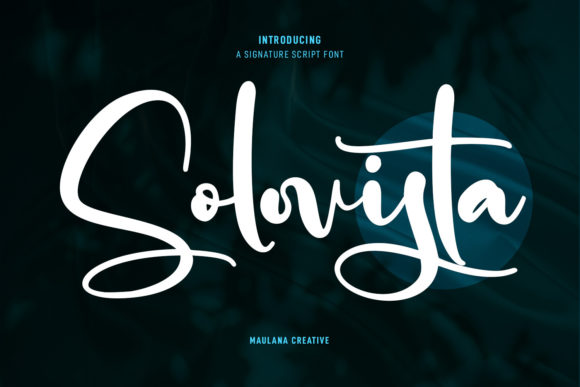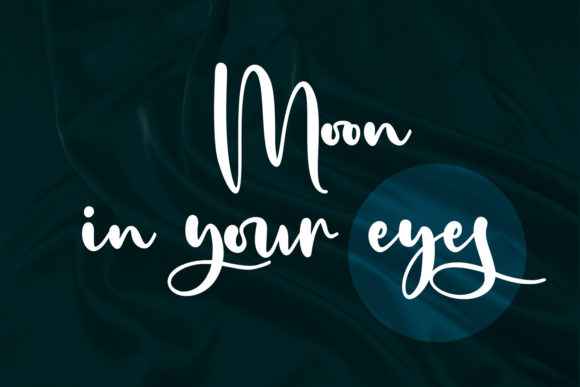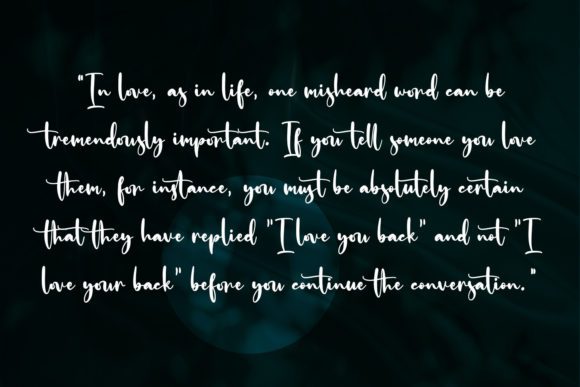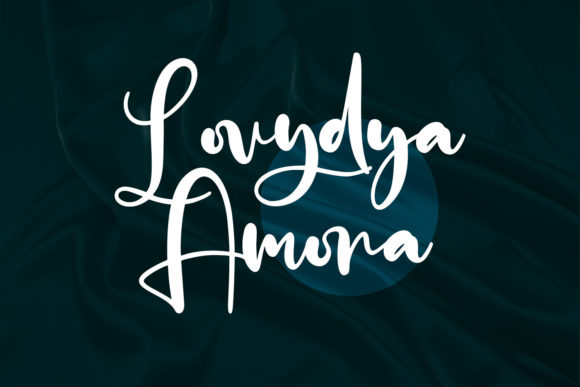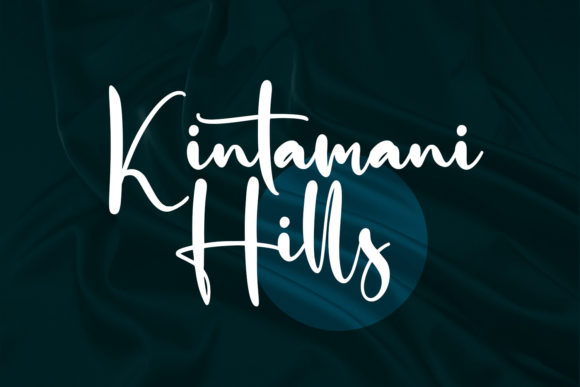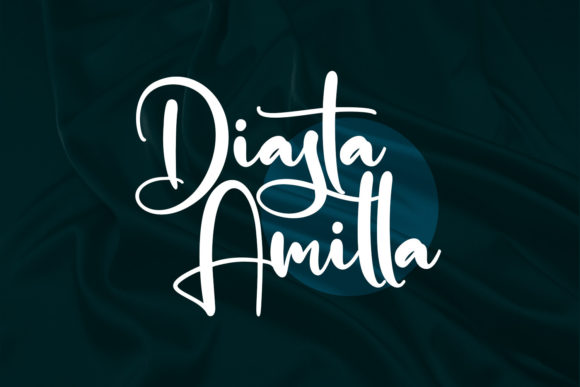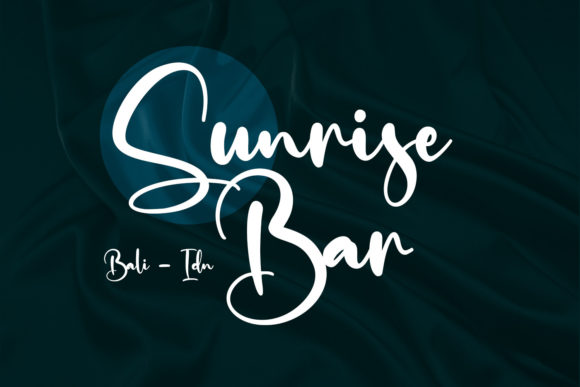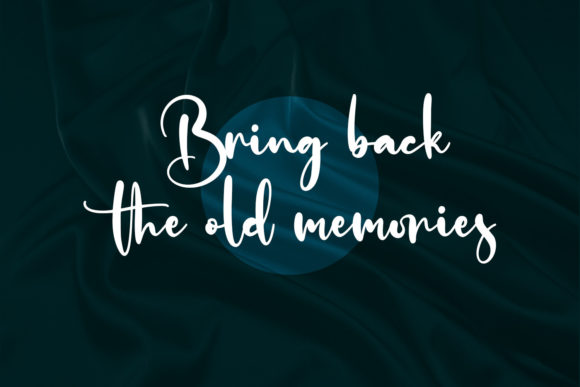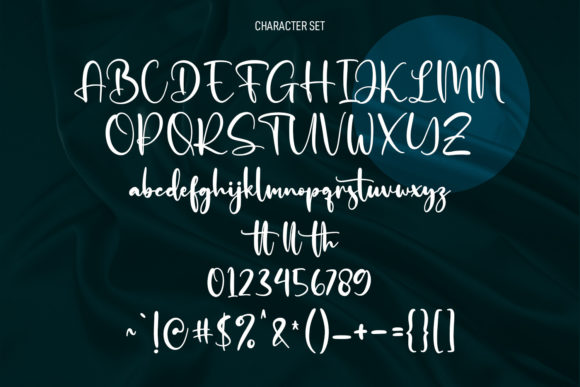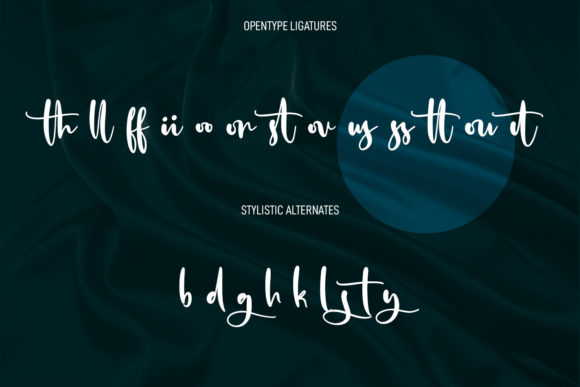
Solovista Signature Script Font
About Solovista Signature Script Font
Solovista is a unique and modern script font. It features regular contrast strokes, fun characters, ligatures and alternates. Whatever the topic, this font will be a wonderful asset to your font library, as it has the potential to enhance any creation.